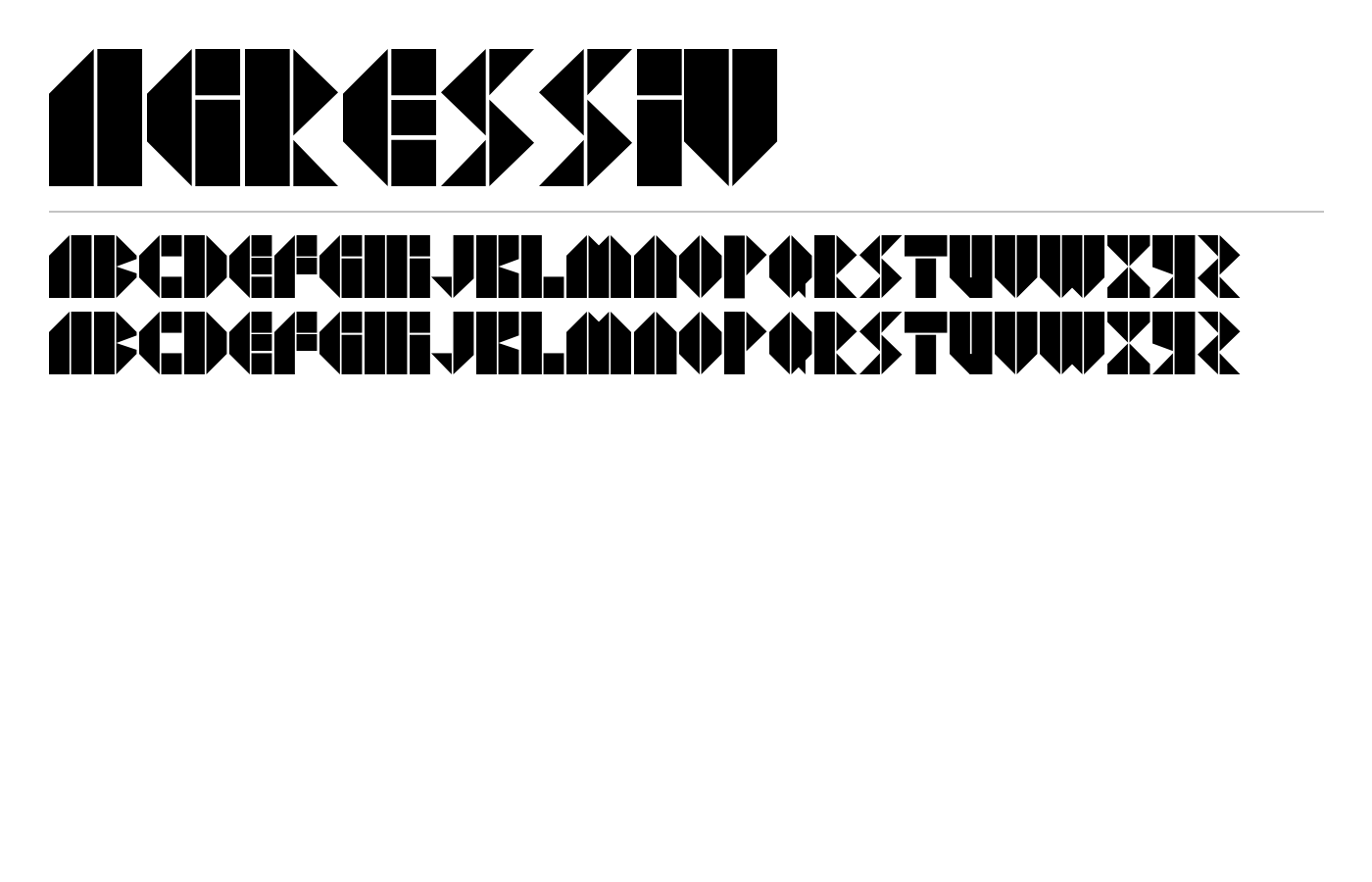
Agressiv is a bold, geometric display font with a striking, blocky design that commands attention. Its sharp angles and heavy weight create a futuristic, edgy vibe, making it perfect for logos, posters, and branding that seek a strong, modern impact. This font works best in headlines or large-scale uses where its unique, aggressive character can really stand out.
Agressiv Font